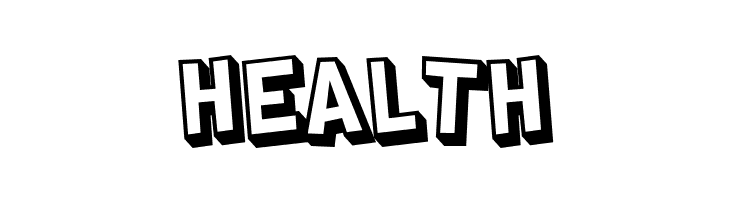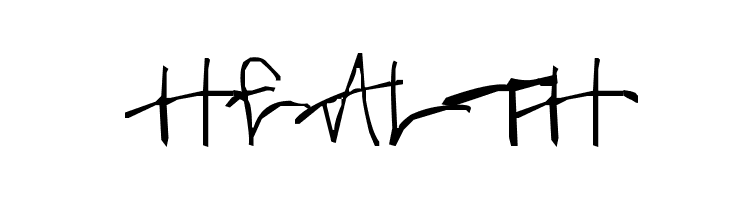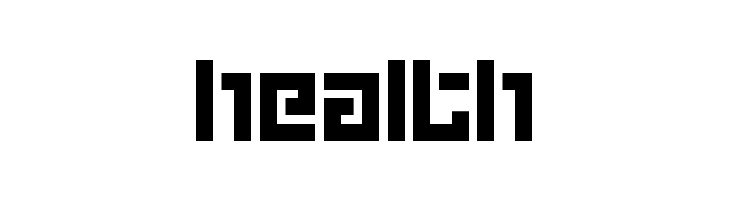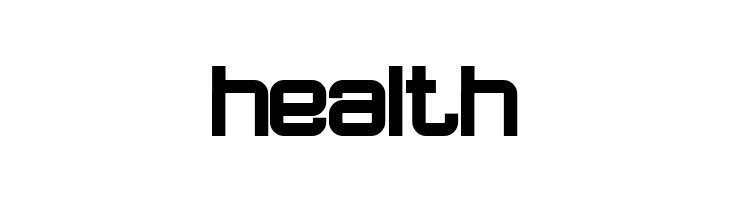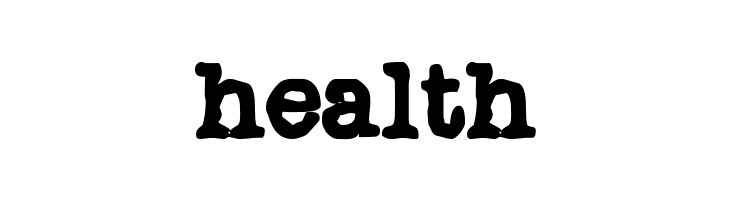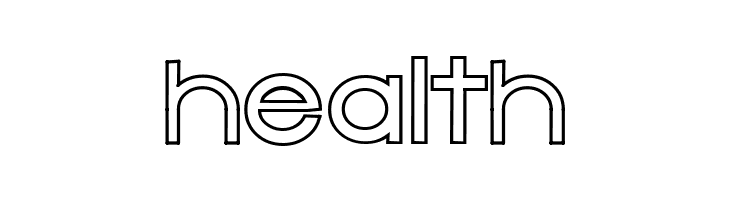
A playful, comic-inspired font with bold, shaded letterforms.
A bold, graffiti-inspired font with a dynamic and energetic hand-drawn style.
A bold, geometric font with a futuristic, digital aesthetic.
A bold, playful font with thick, rounded strokes and a whimsical style.
A modern, angular italic font with a futuristic and geometric style.